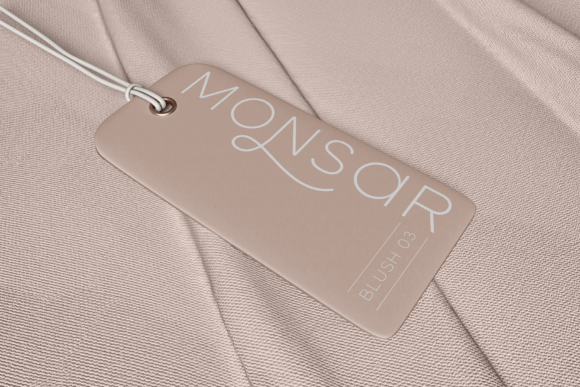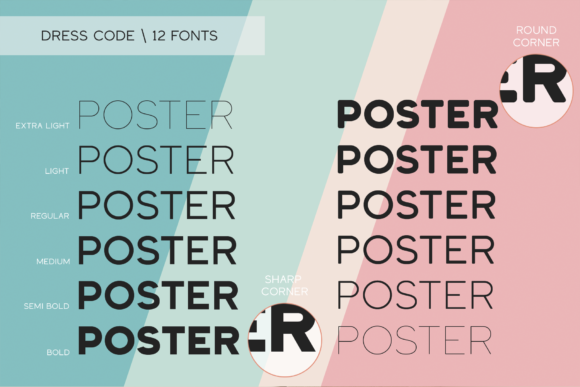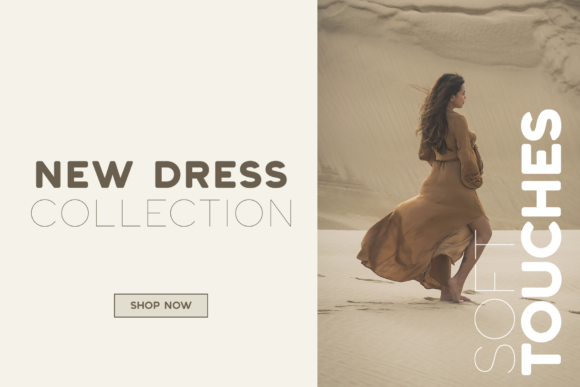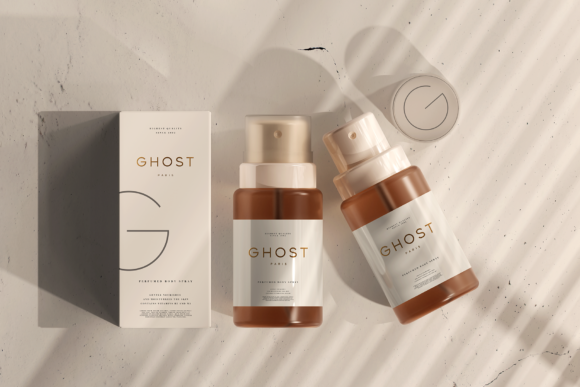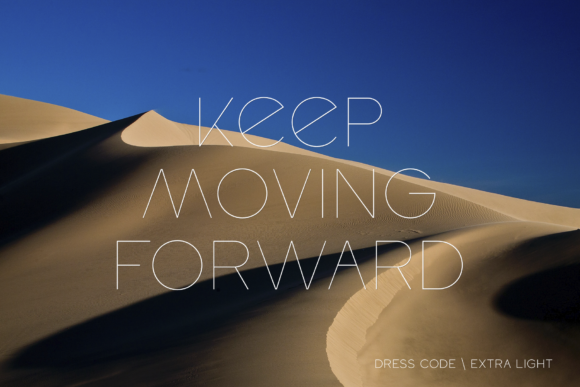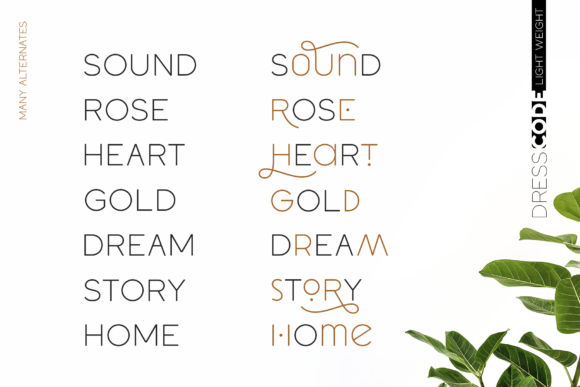
Dress Code Font: Elevate Your Design with Modern Sans-Serif Elegance
In the world of typography, a font can make or break a design. For designers and crafters seeking a modern sans-serif font that exudes elegance and versatility, look no further than the Dress Code Font. This comprehensive font family comprises 12 fonts in 2 styles, each with 6 weights, offering endless creative possibilities. In this article, we will explore the features, benefits, and applications of the Dress Code Font, and why it’s an essential addition to your typography arsenal.
What is Dress Code Font?
Dress Code Font is a modern sans-serif font family designed to cater to the diverse needs of designers, crafters, and typography enthusiasts. Its unique glyphs and versatile nature make it an ideal choice for a wide range of projects, from branding and advertising to packaging and digital media.
Key Features of Dress Code Font
- 12 Fonts in 2 Styles: The Dress Code Font family includes 12 fonts, divided into 2 styles, each with 6 weights. This extensive range allows you to experiment with different typography combinations to find the perfect fit for your design.
- Unique Glyphs: The font features unique glyphs that provide endless creative options. These distinctive characters enable you to add a personal touch to your design, setting it apart from others.
- Easy to Read: The Dress Code Font is designed with readability in mind. Its clean lines, balanced proportions, and generous x-height ensure that your text is clear and legible, even at smaller font sizes.
- Versatile: The font’s versatility makes it suitable for a wide range of applications, from digital media and branding to packaging and print materials.
Benefits of Using Dress Code Font
The Dress Code Font offers numerous benefits to designers and crafters, including:
- Consistency: With 12 fonts in 2 styles, you can maintain consistency across your design projects while experimenting with different typography combinations.
- Creativity: The font’s unique glyphs and versatile nature empower you to push the boundaries of typography and explore new creative avenues.
- Readability: The Dress Code Font’s focus on readability ensures that your message is conveyed clearly and effectively, regardless of the medium.
- Time-Saving: With a comprehensive font family at your disposal, you can save time searching for and pairing different fonts, allowing you to focus on the creative aspects of your project.
Applications of Dress Code Font
The Dress Code Font is suitable for a wide range of applications, including:
- Branding and Advertising: Use the Dress Code Font to create stunning brand identities, advertisements, and marketing materials that demand attention.
- Digital Media: The font’s clean lines and legibility make it perfect for digital media, including websites, social media graphics, and mobile apps.
- Packaging: Add a touch of elegance to your packaging designs with the Dress Code Font, making your products stand out on store shelves.
- Print Materials: Use the font for print materials such as brochures, flyers, and business cards to create a lasting impression.
| Font Name | Dress Code Font |
| Author | Pasha Larin |
In conclusion, the Dress Code Font is an exceptional addition to any designer’s or crafter’s typography collection. Its unique blend of modern sans-serif elegance, versatility, and readability makes it an ideal choice for a wide range of projects. With its comprehensive font family, you can experiment with different typography combinations, push the boundaries of creativity, and elevate your designs to new heights.